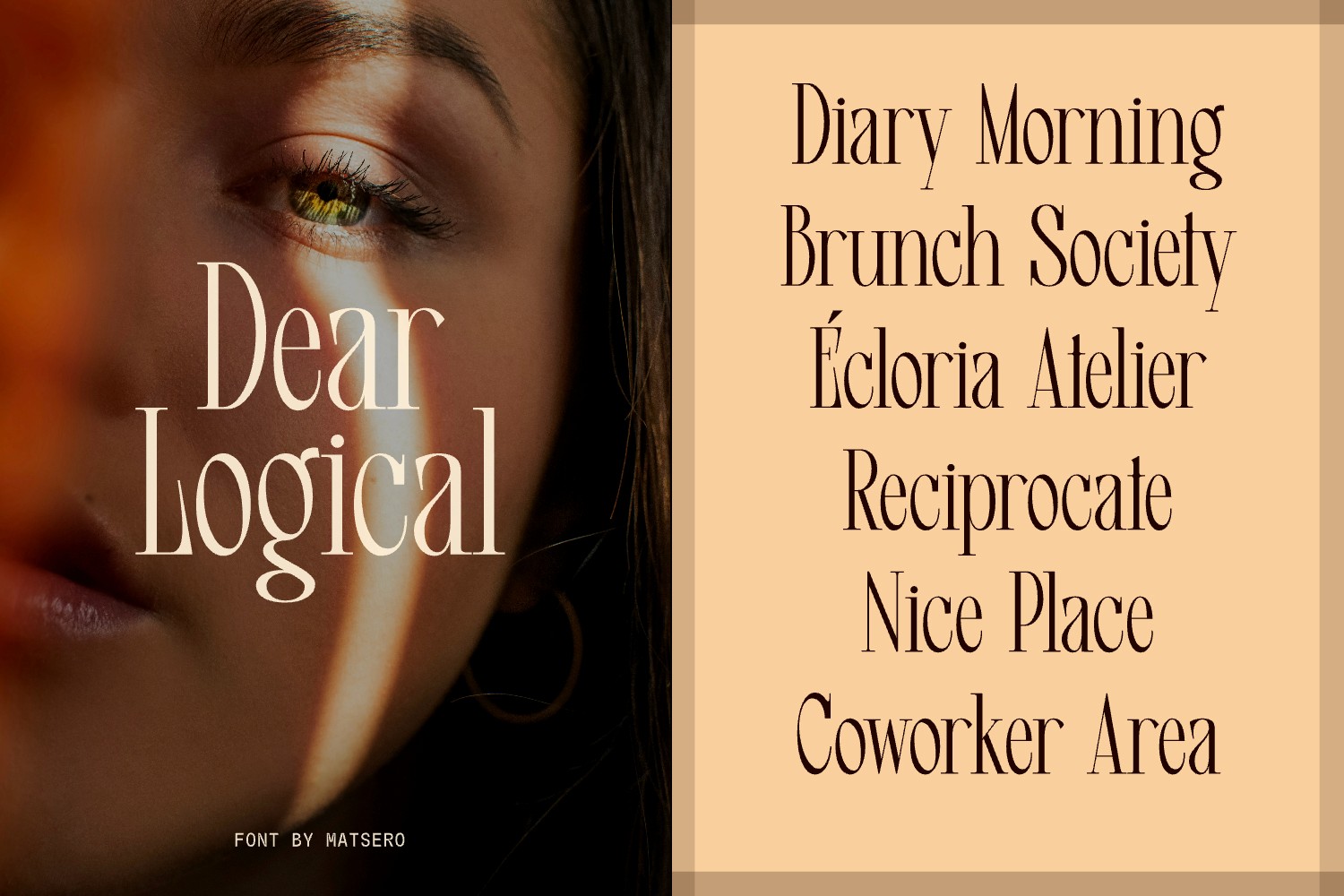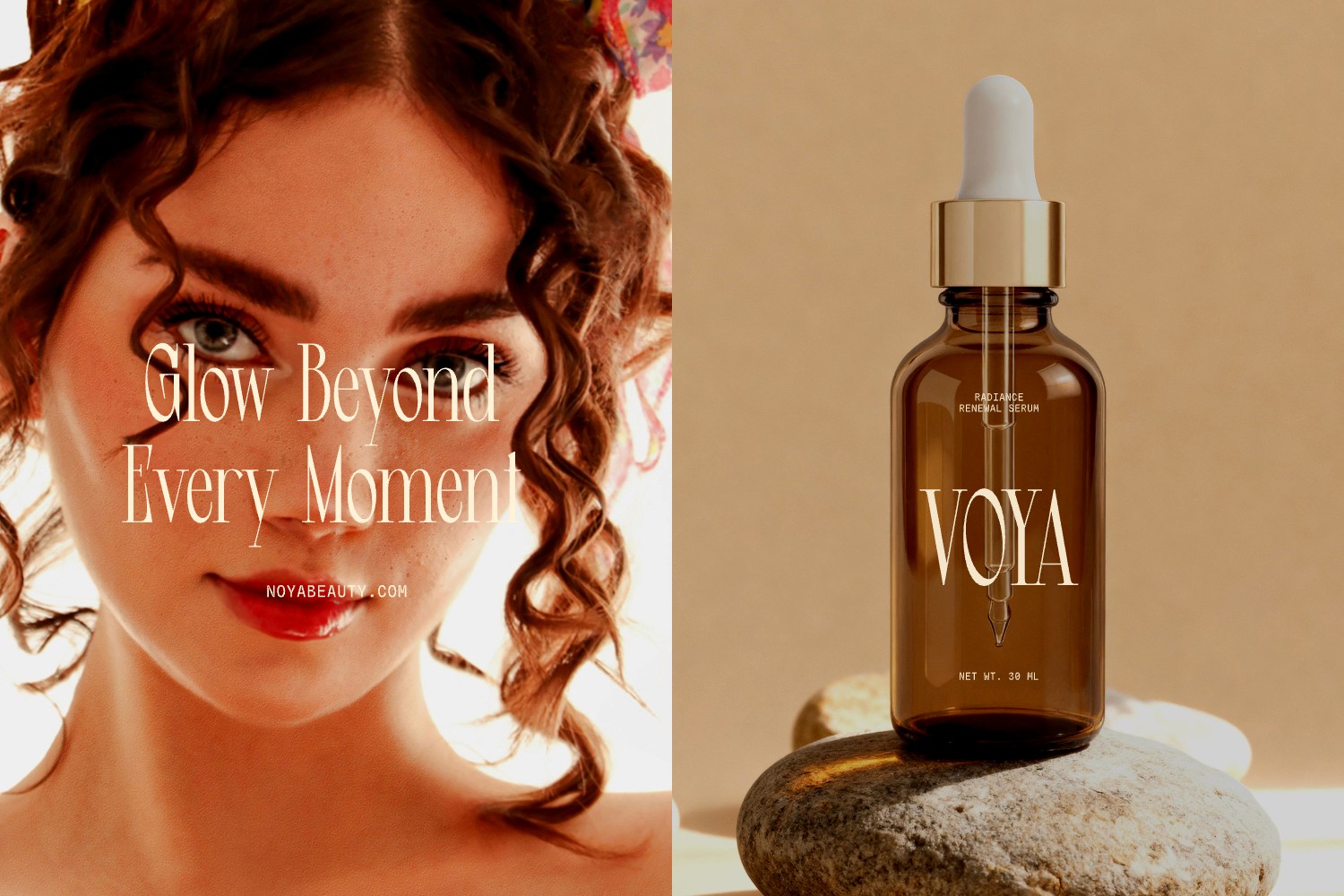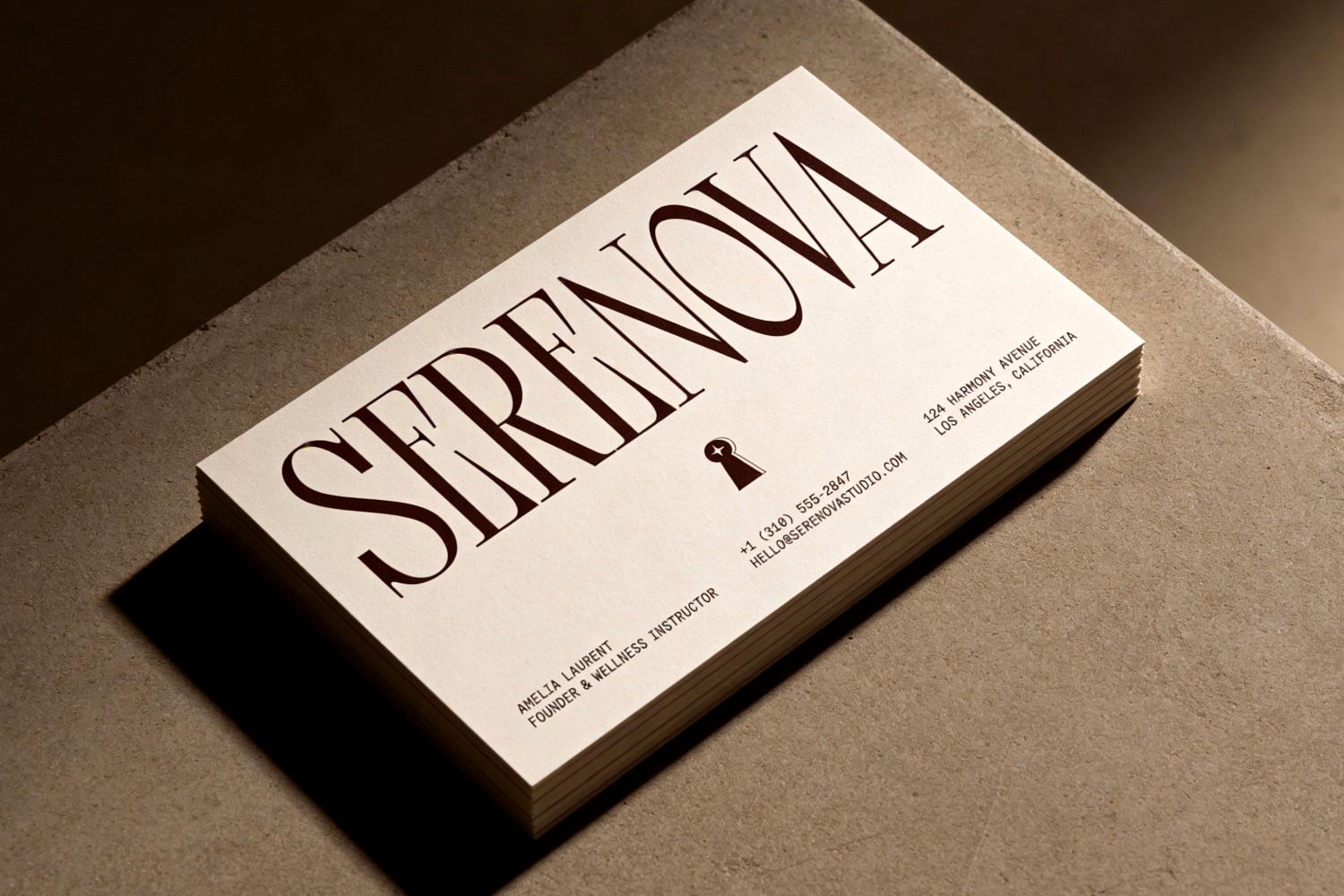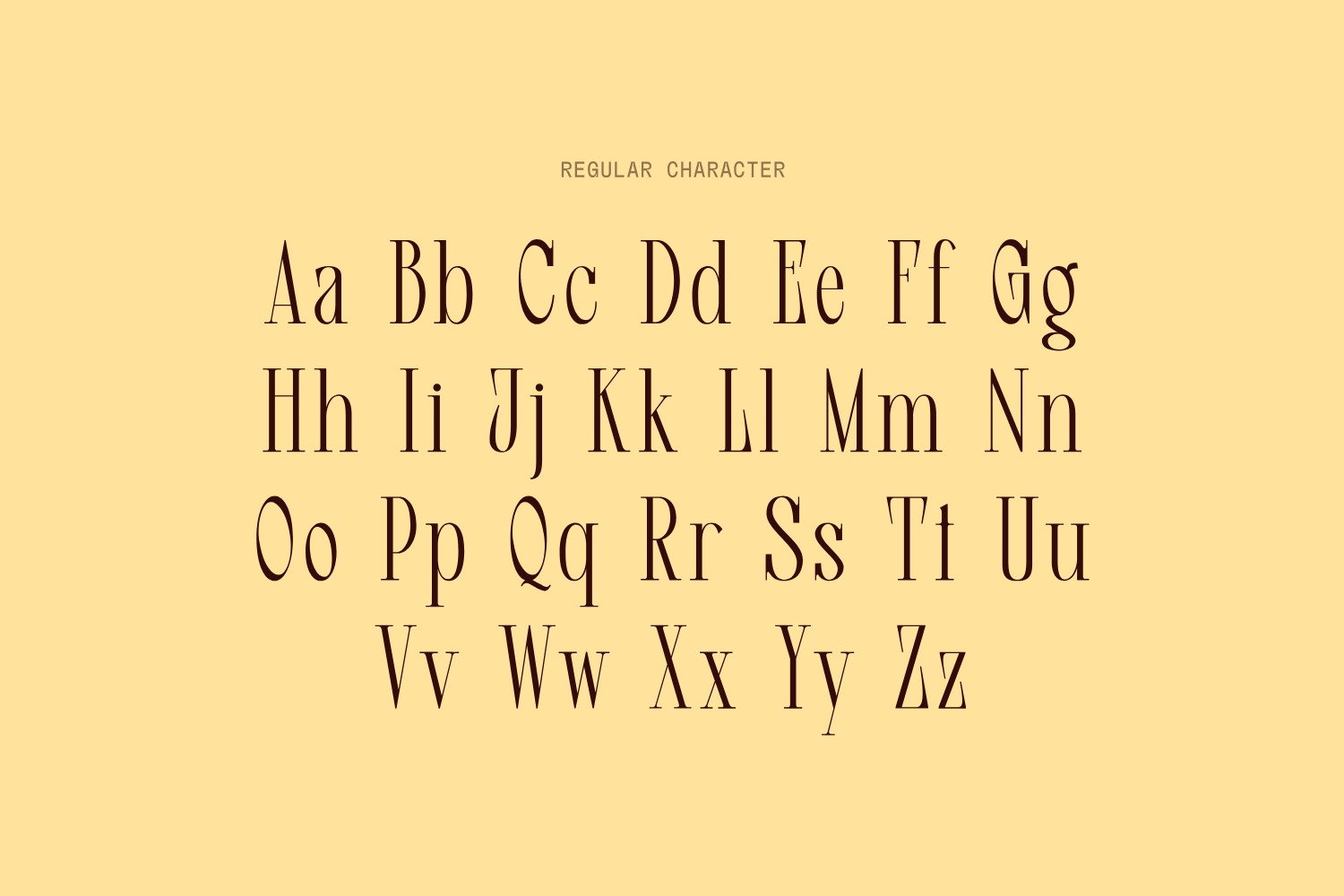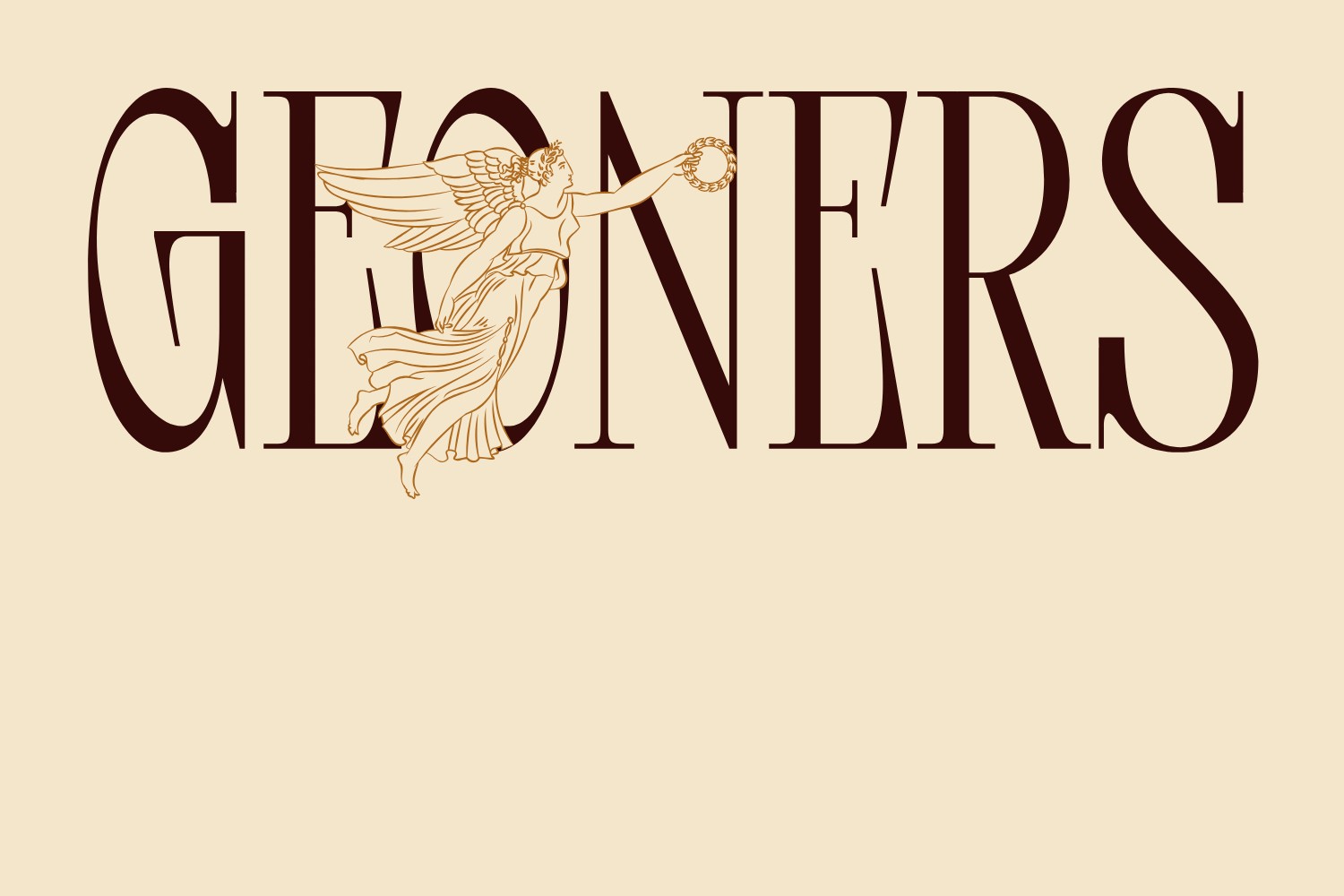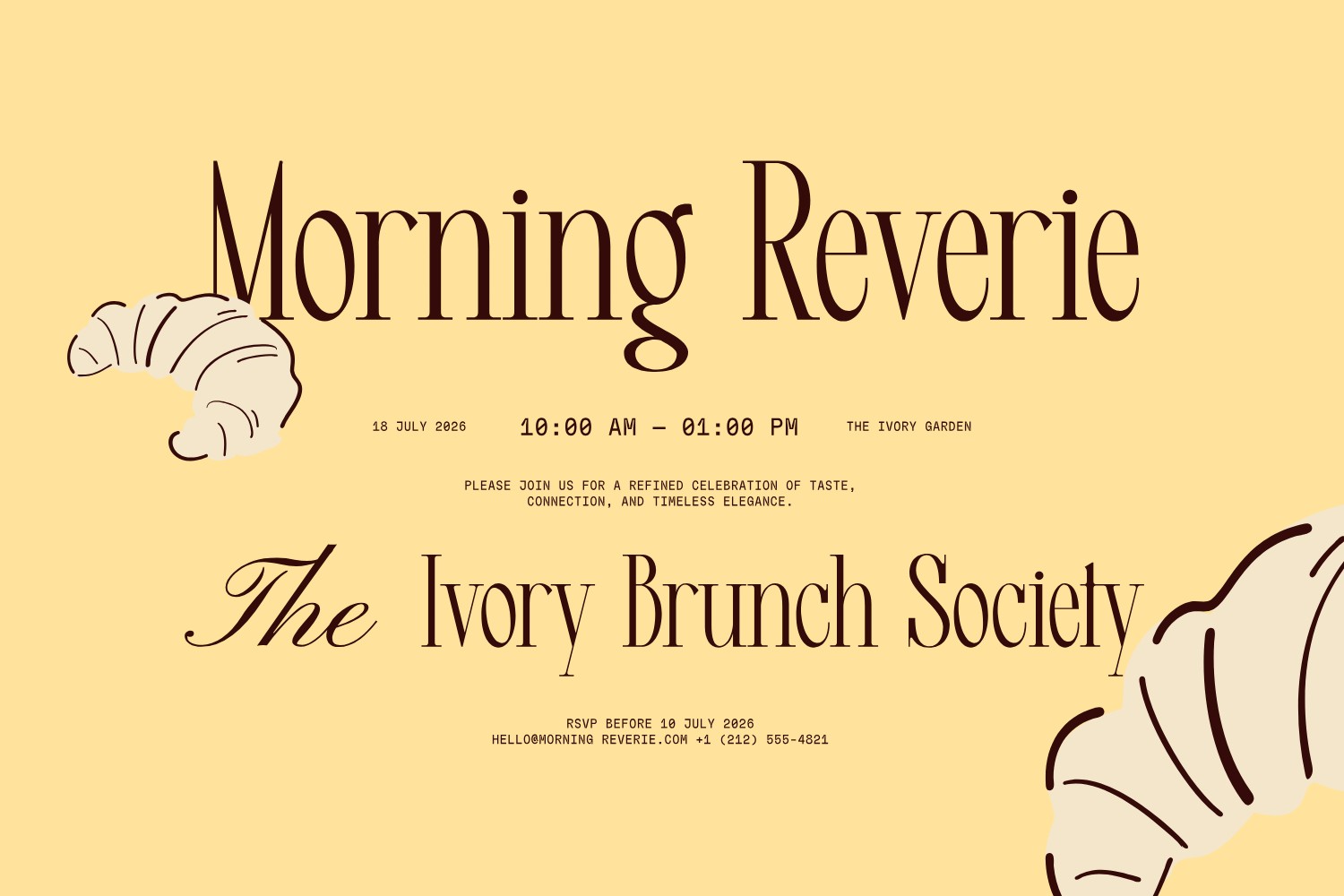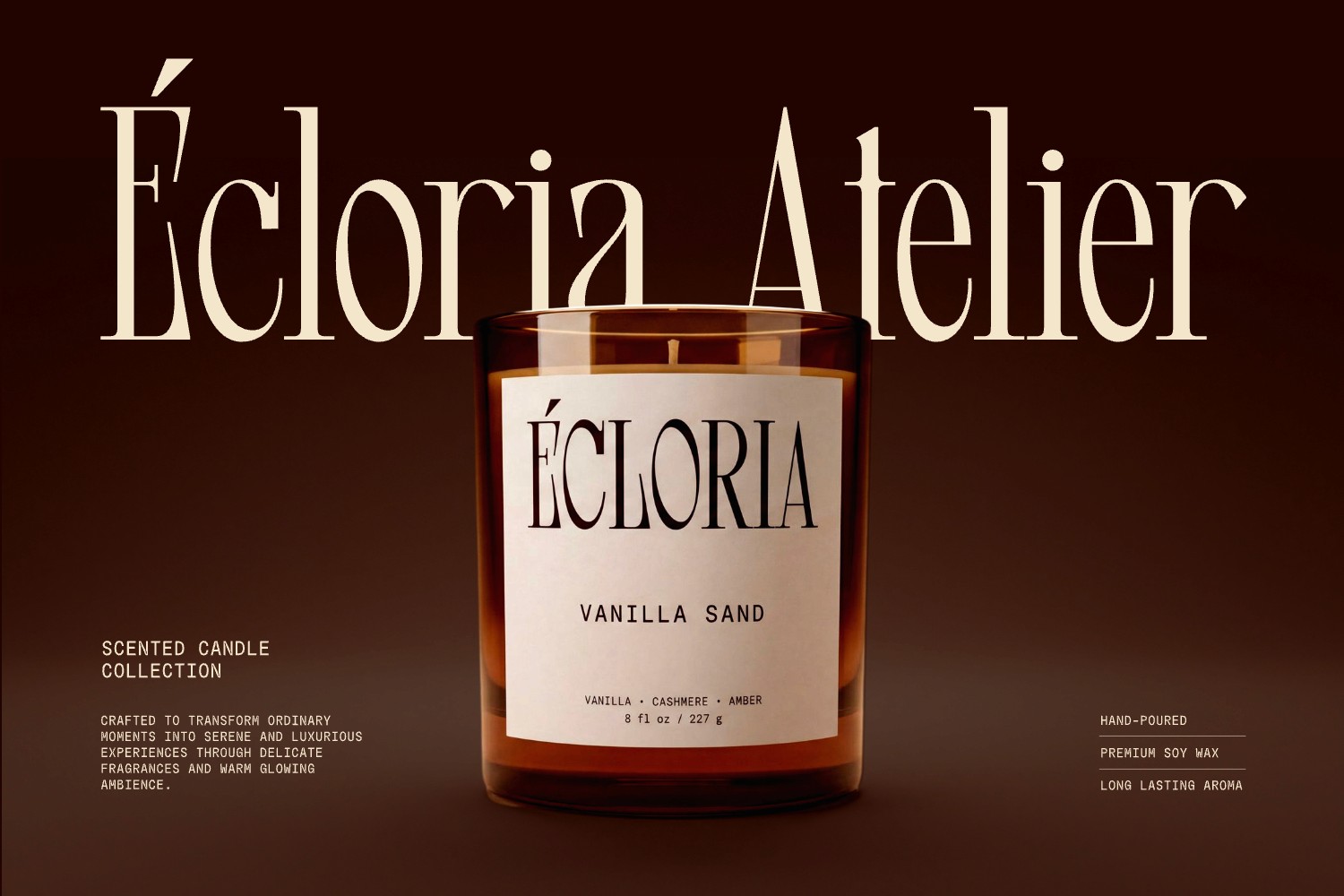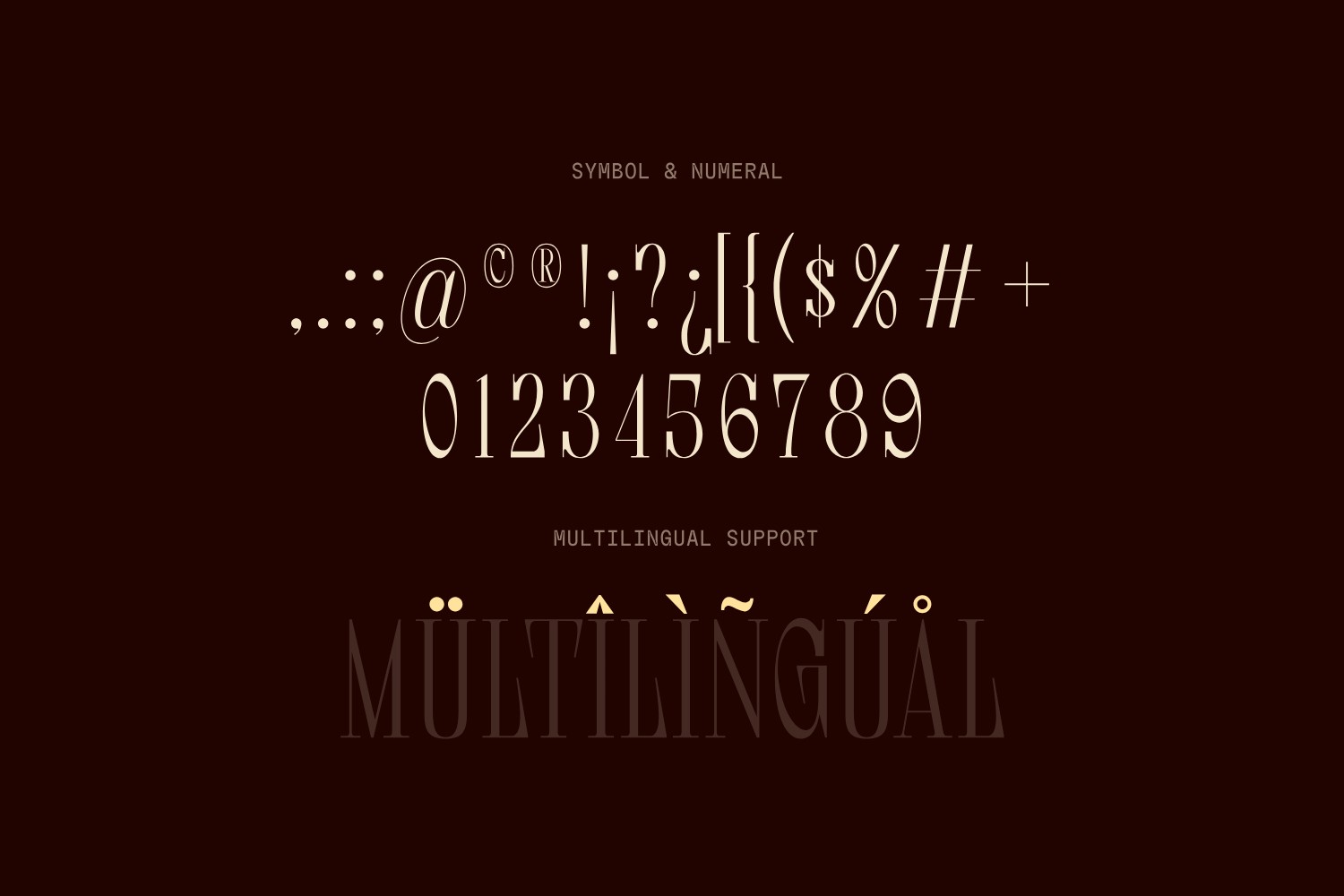
Dear Logical
Dear Logical is an elegant high-contrast serif font crafted for timeless sophistication and artistic expression. Perfect for luxury branding, editorials, logos, packaging, invitations, posters, social media graphics, and refined design projects. With stylish ligatures, symbols, numerals, and multilingual support, Dear Logical brings graceful character and elevated charm to every design.